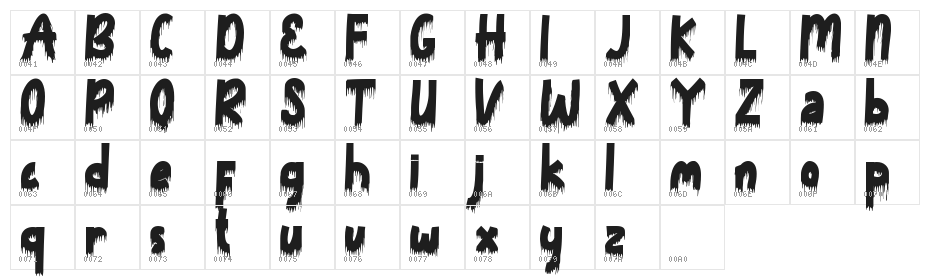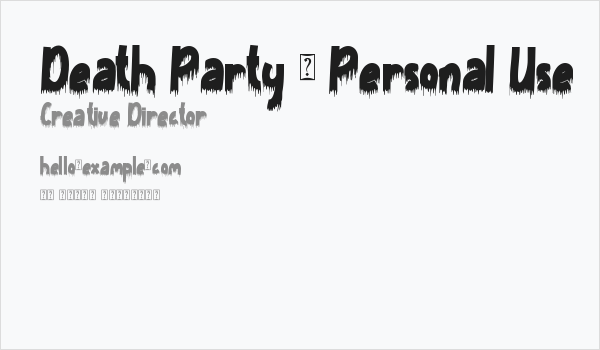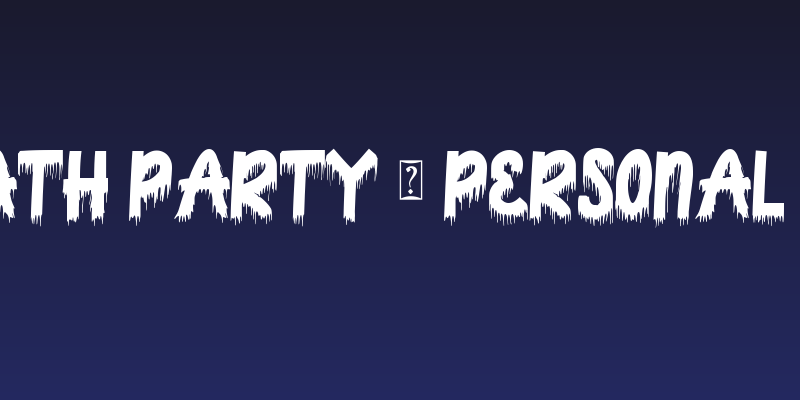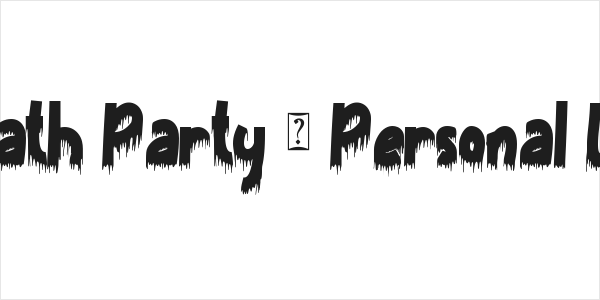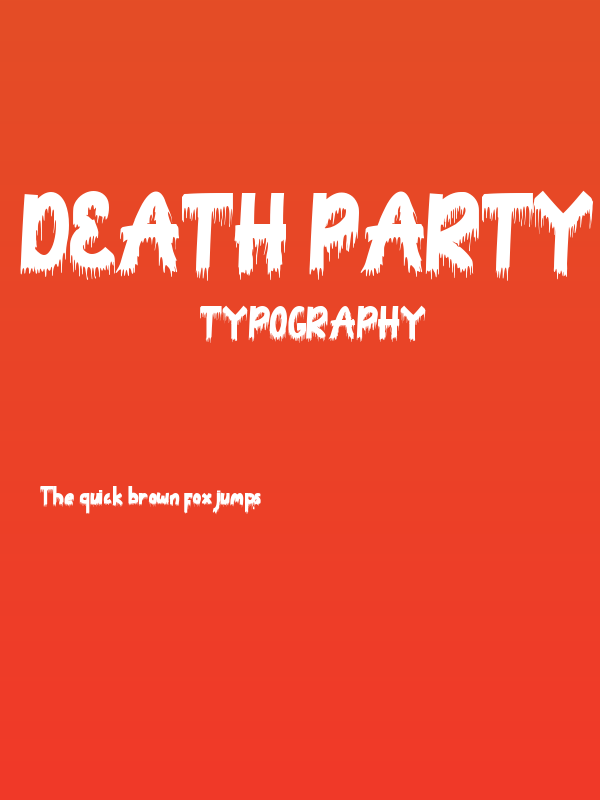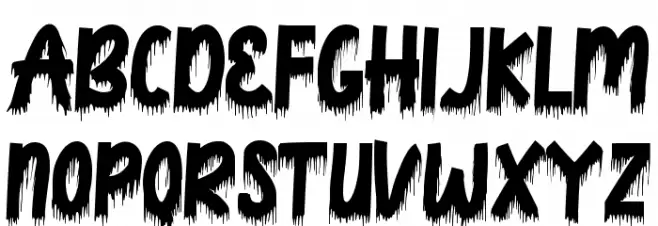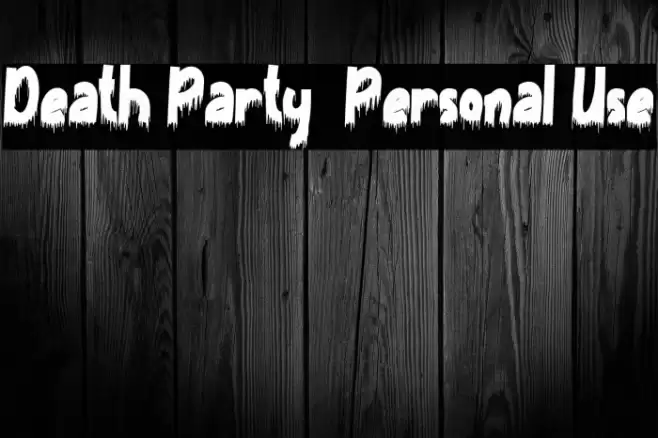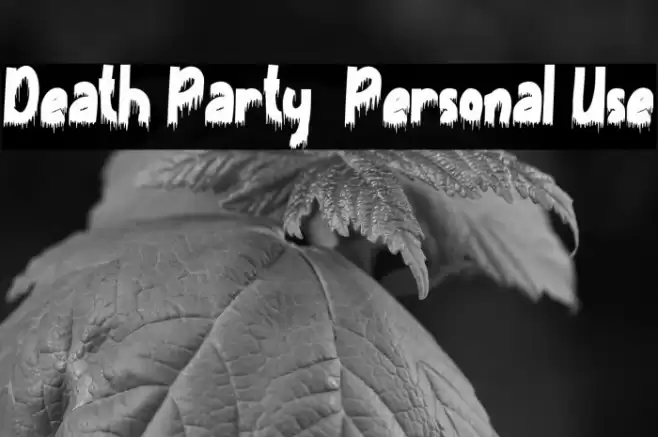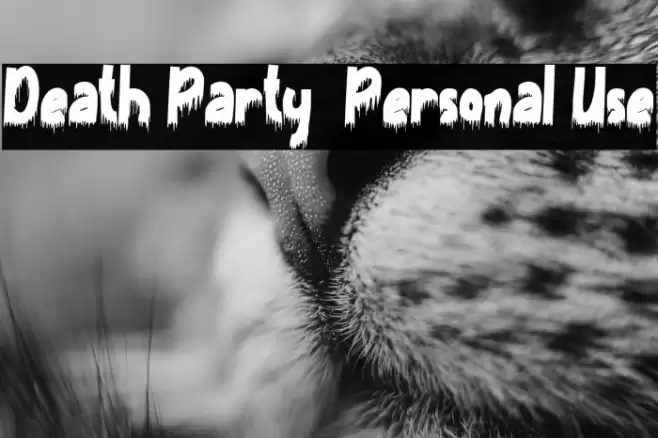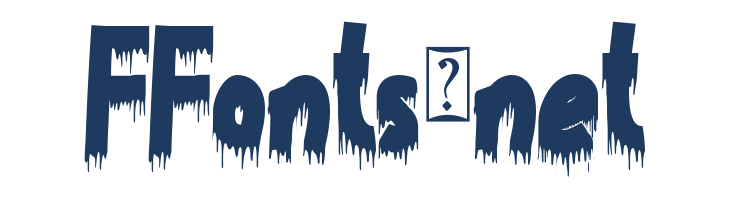
Death Party - Personal Use Font
Death Party - Personal Use Description
This font features a bold and dramatic style with a dripping effect that gives it a spooky, horror-themed appearance. The uppercase and lowercase letters are designed with jagged edges and irregular shapes, creating a sense of movement and chaos. The numbers and special characters maintain the same dripping aesthetic, ensuring a cohesive look across all glyphs. This font is perfect for creating eye-catching designs that require a touch of the macabre or eerie. Its unique style makes it ideal for Halloween-themed projects, horror movie posters, or any design that needs a bold, unsettling impact.
| Proposed Projects | Ideal for Halloween designs, horror movie posters, themed party invitations, and spooky event branding. |